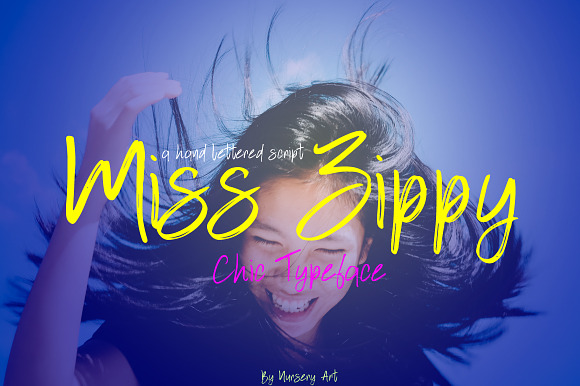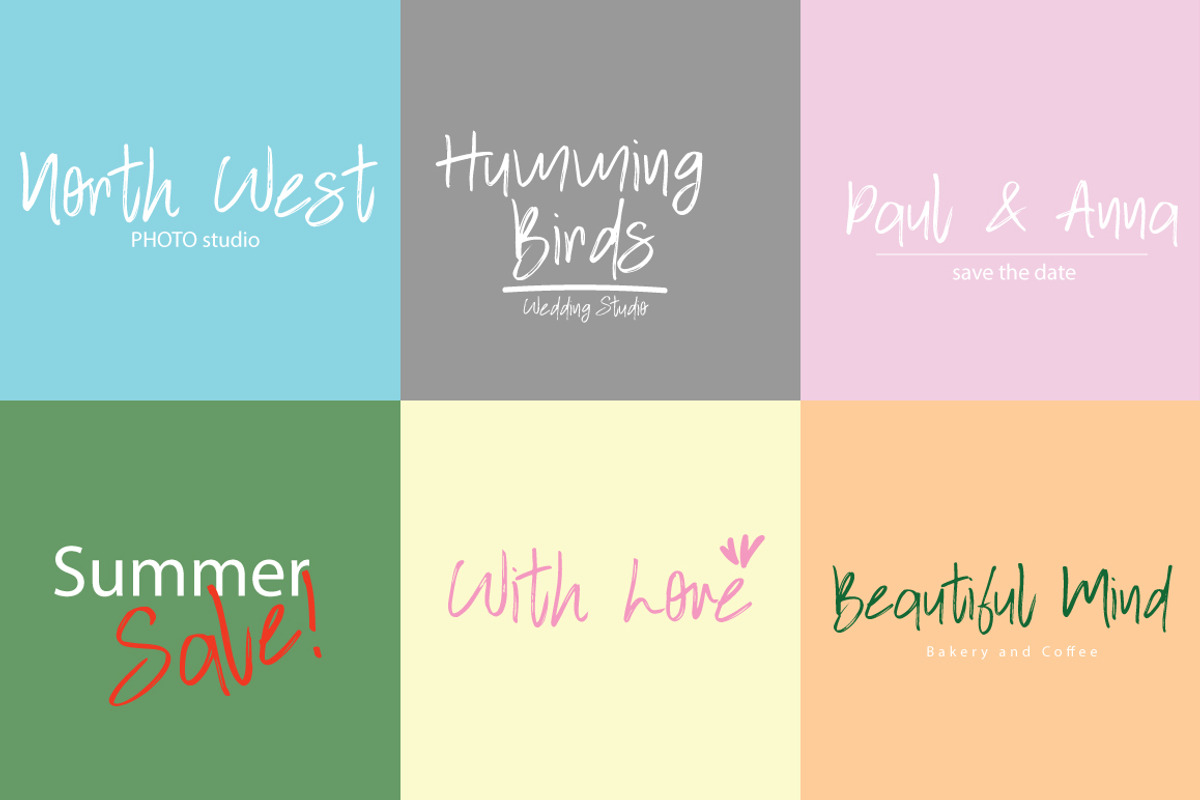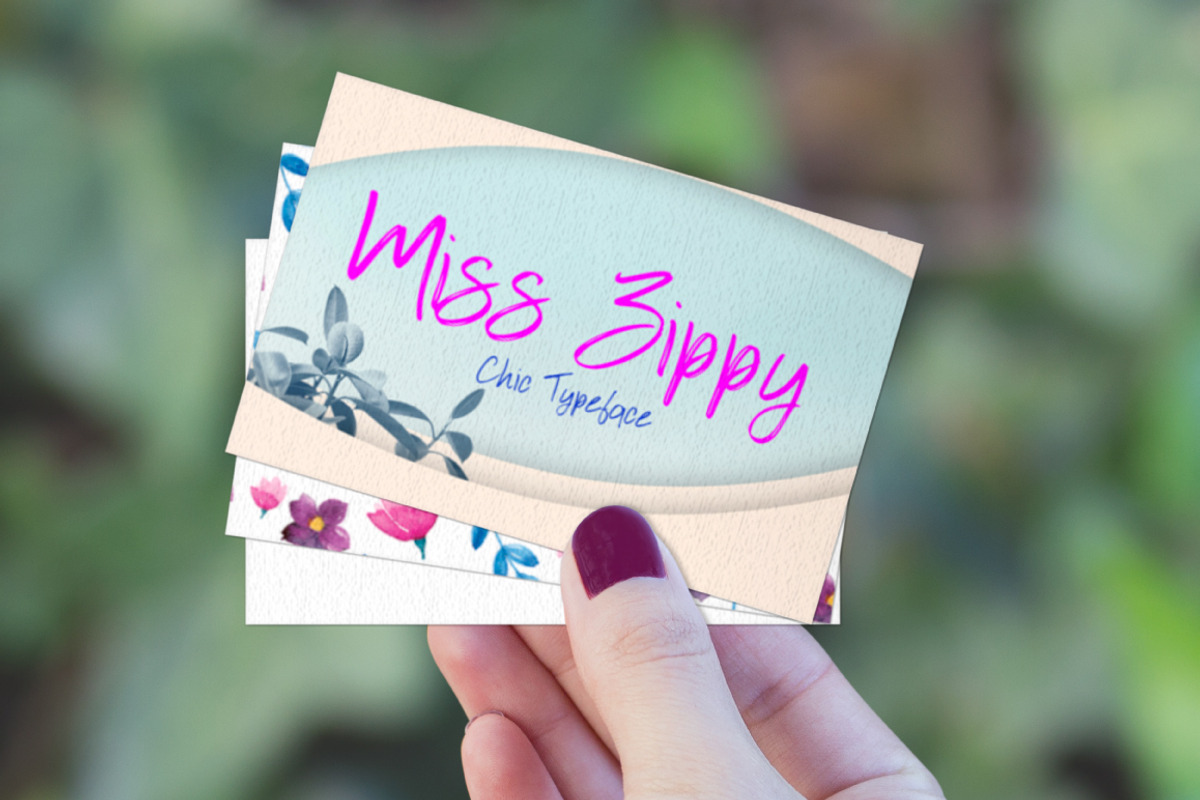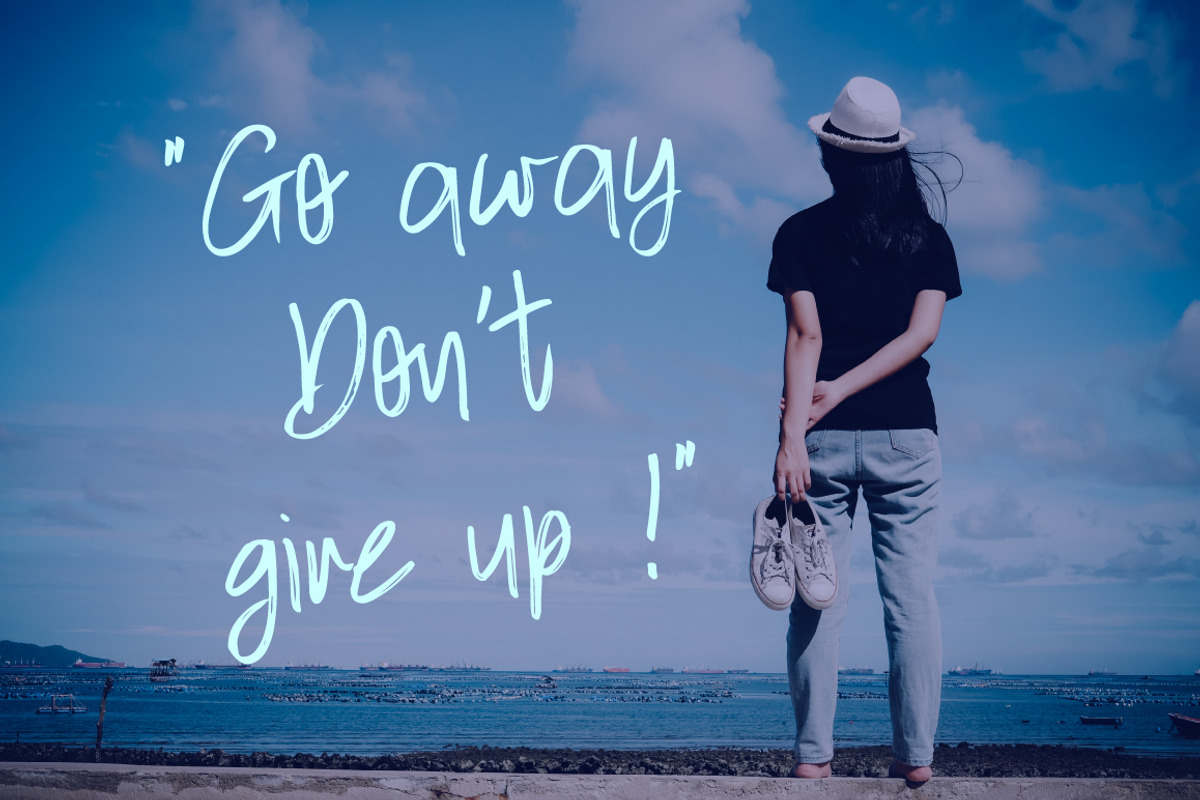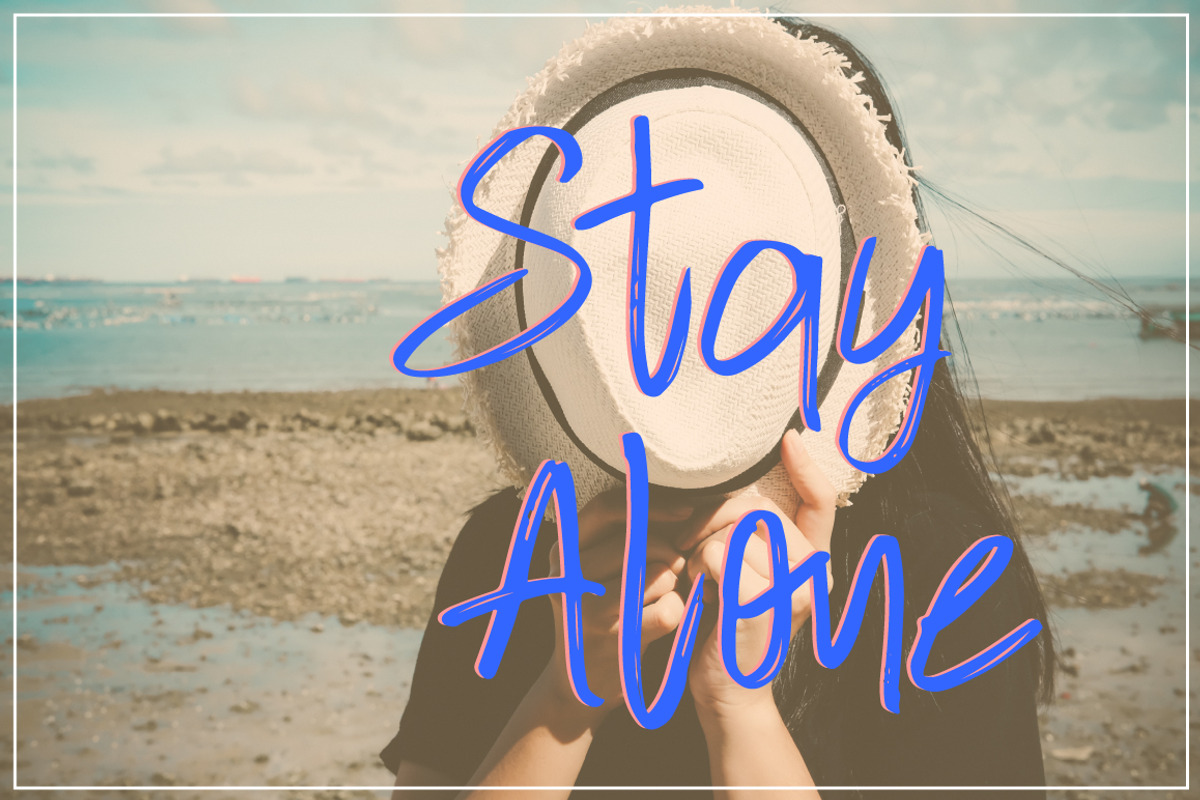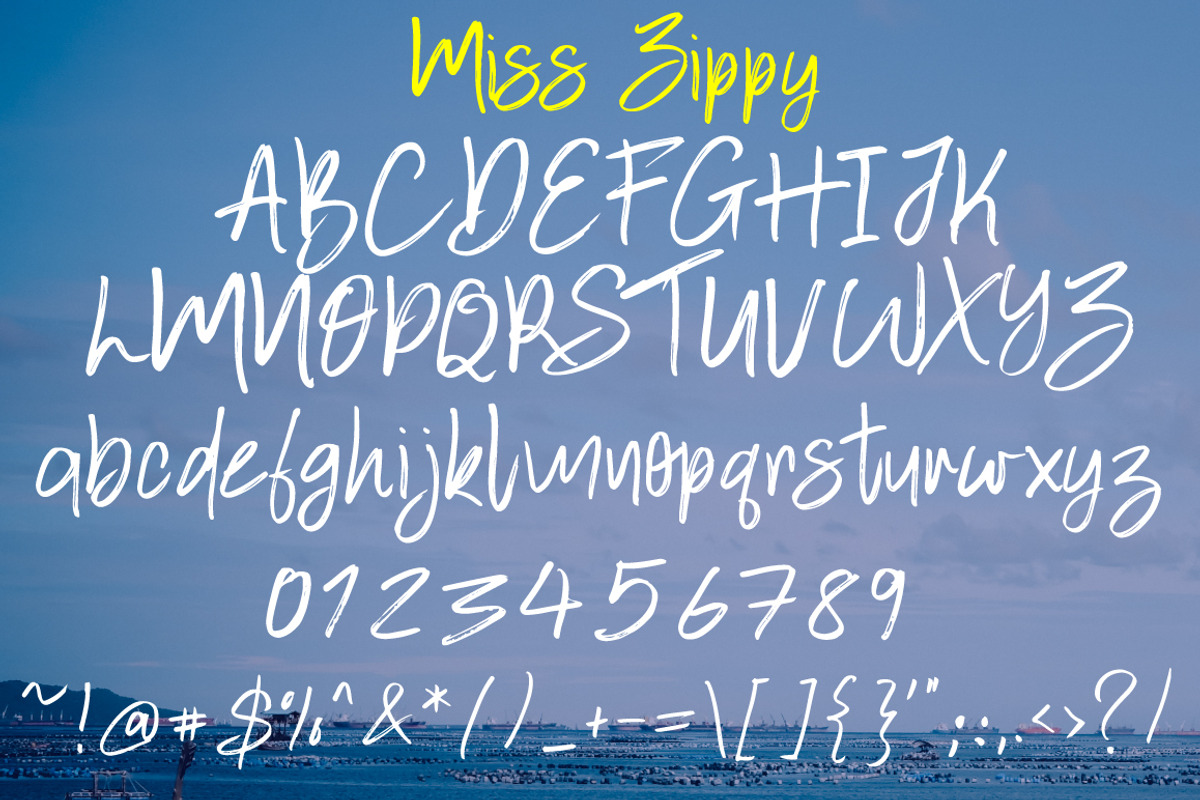
Miss Zippy | Chic Typeface
it's amazing handwritten lettering script font.
This font are perfect for wedding invitation or your blog. Also with their help, you can create a logo or beautiful frame for your home. Or just use for your small business, book covers, stationery and more. You can make compositions from font, it's easy and simple.
Miss Zippy | Chic Typeface by Artstudio fits naturally into Branding, posters, packaging, typography.